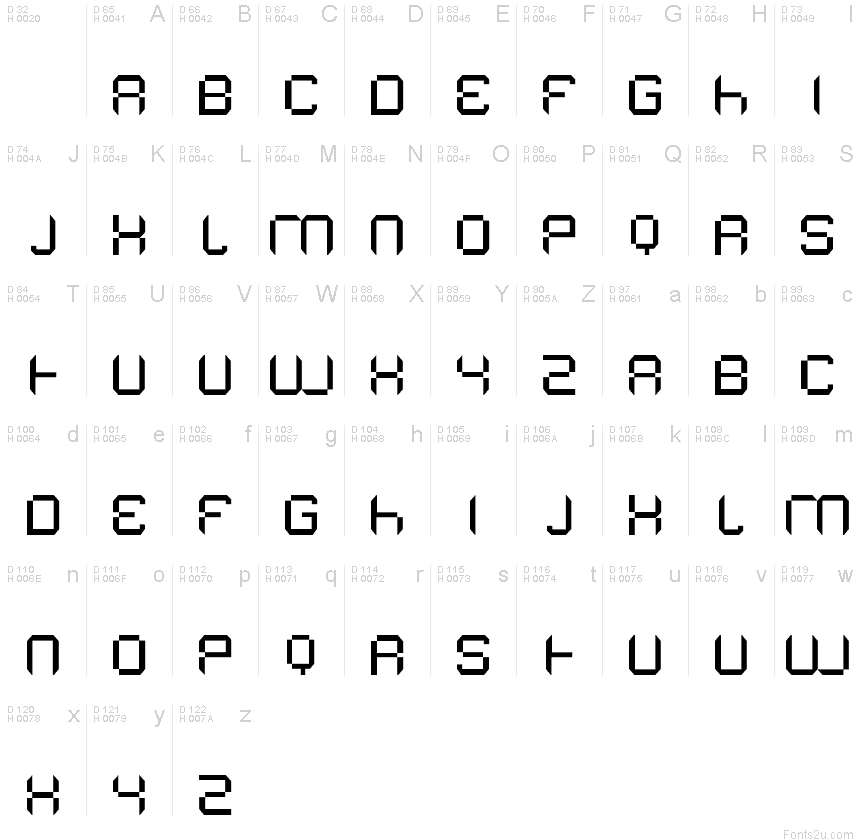
Akei is a free segmented techno display font built from broad geometric strokes and sharply clipped corners. Its modular letters are split by clean horizontal gaps, recalling an electronic panel or coded display.
Digital graphics are its clearest medium, especially game interfaces and electronic music artwork shaped by machine-cut forms. It also suits sci-fi posters and tech branding. Its compact, industrial look speaks to audiences interested in arcade hardware, robotics, and electronic culture.